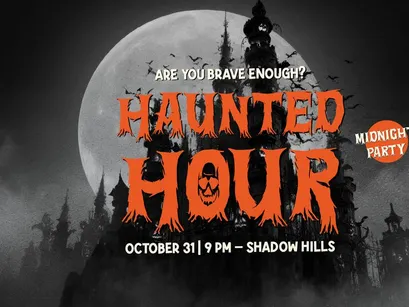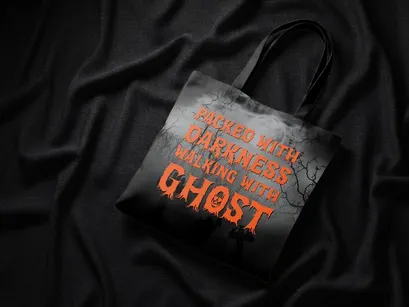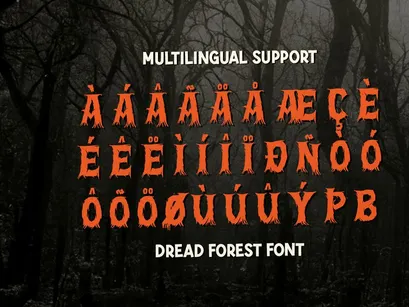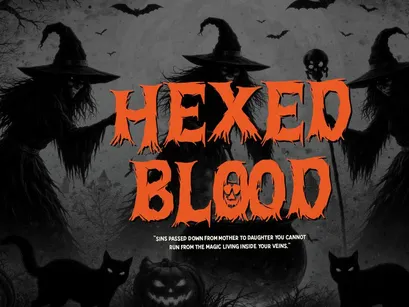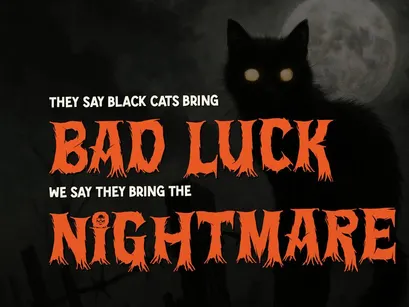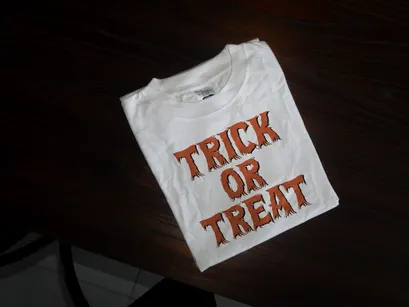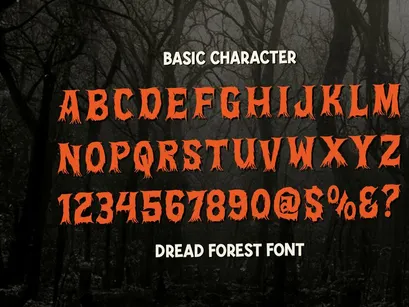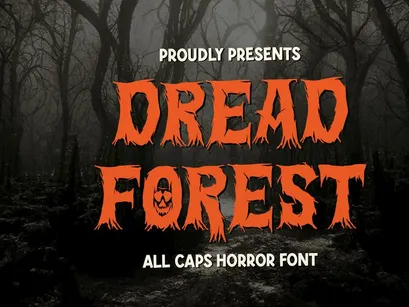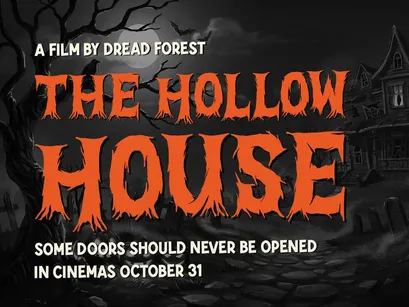
Dread Forest | All Caps Horror Font, from Gracetypestudio, suitable for any projects such as: logos, branding projects, homeware designs, product packaging, mugs, quotes, posters, shopping bags, t-shirts, book covers, name card, invitation cards, greeting cards, label, photography, watermark, special events, and all your other lovely projects that need a Horror Font taste.